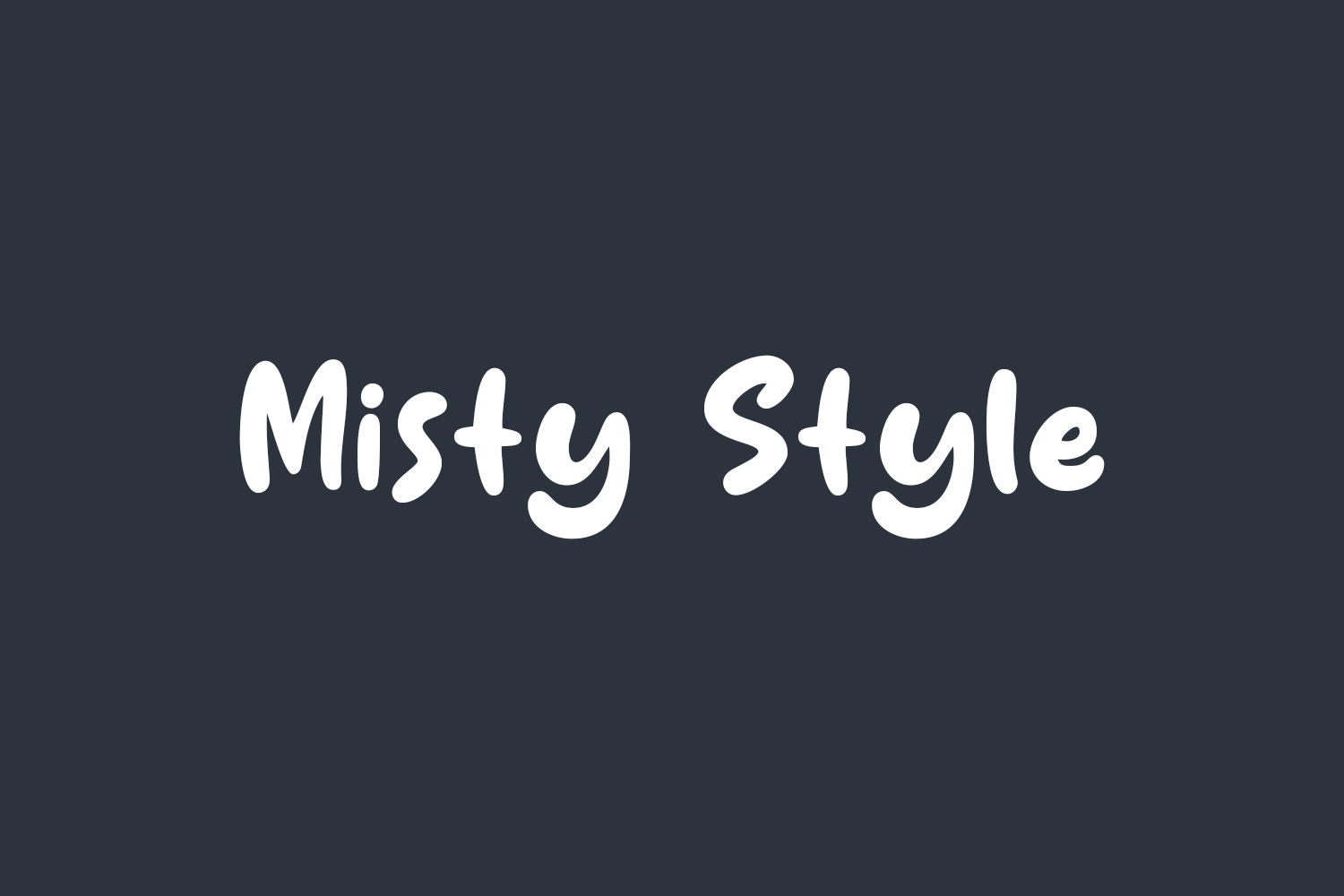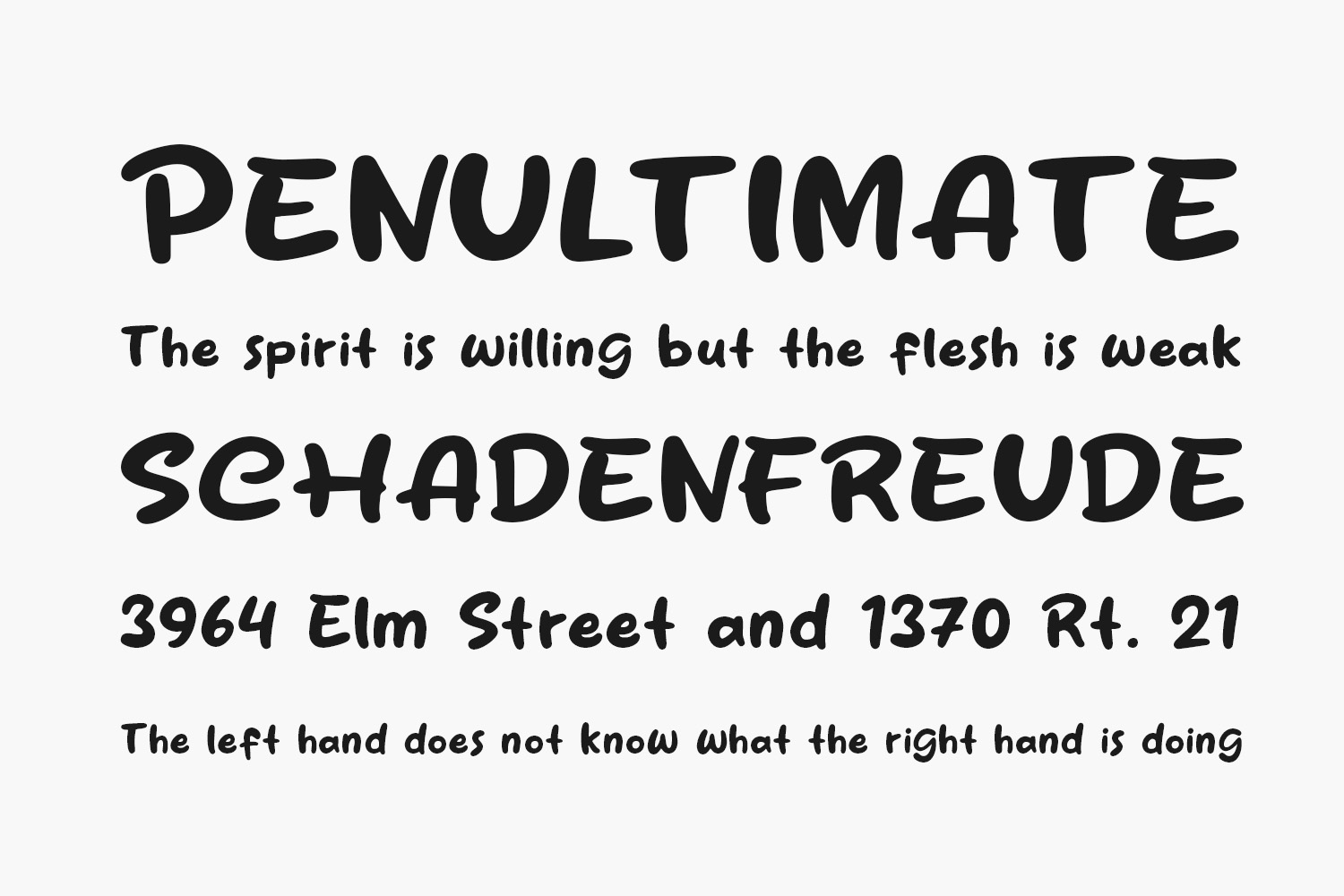
Introducing Misty Style Free Font – a lively and dynamic display typeface bursting with personality and allure. Infused with whimsical letterforms and cheerful curves, this font injects a sense of playfulness into every design. Ideal for headlines, logos, and imaginative projects in search of a dash of character, Misty Style Font encapsulates the spirit of joy and creativity, ensuring your text commands attention with its distinctive and lively flair. Misty Style Free Font is free for personal use only. Please purchase the full version for commercial use.